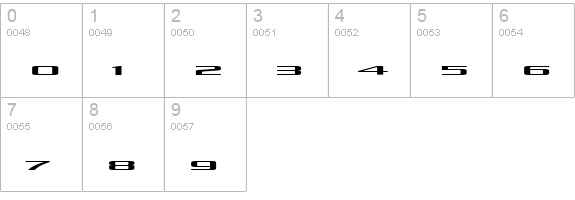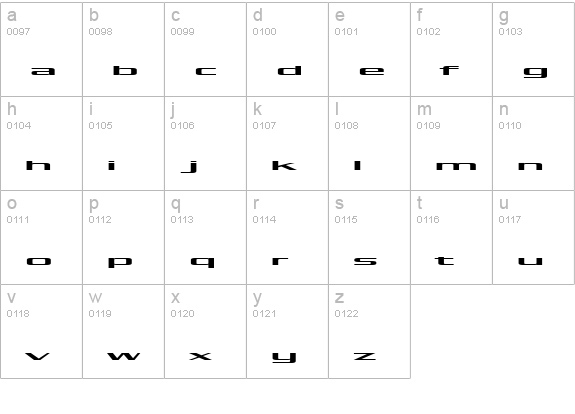
Kubra_Low font is a modern and stylish typeface that exudes sophistication and elegance. With its sleek lines and contemporary design, this font is perfect for a wide range of projects, from branding to editorial design. The unique characteristics of Kubra_Low font make it stand out and grab the attention of the audience. The best part is that Kubra_Low font is available for free download at FontsMarket.com. This means that you can easily access this high-quality font without any cost, making it a valuable resource for designers and creatives looking to enhance their projects. Don't miss out on this opportunity to elevate your designs with the beautiful Kubra_Low font, now available for free at FontsMarket.com.